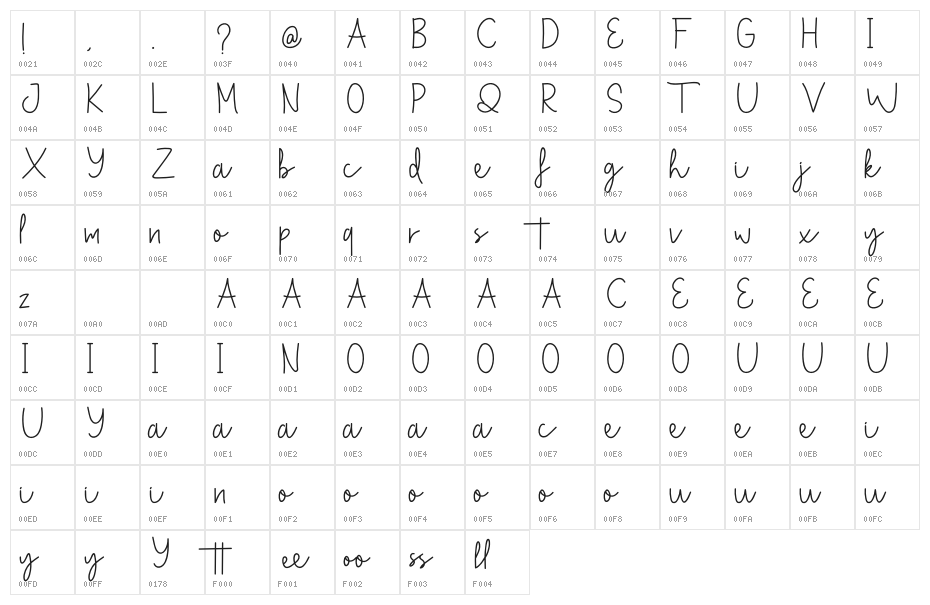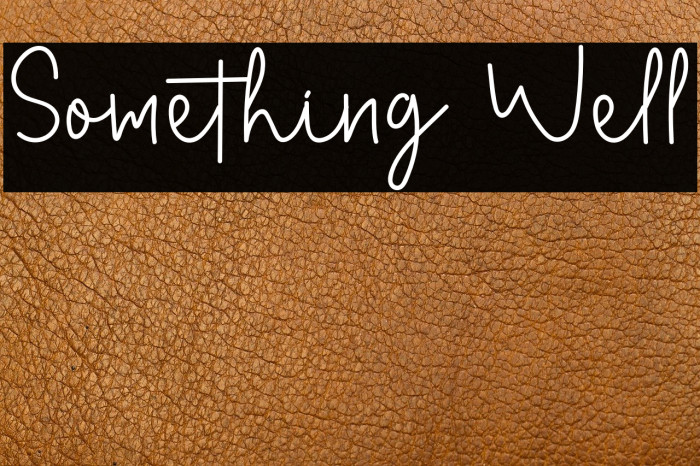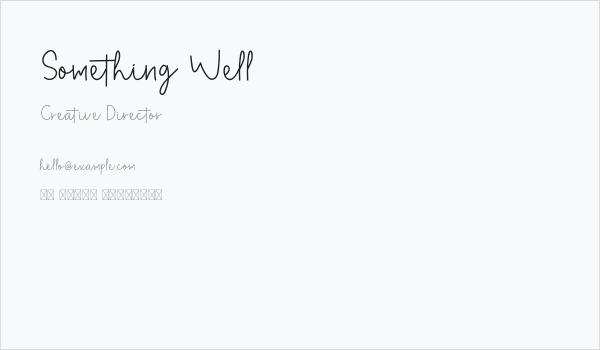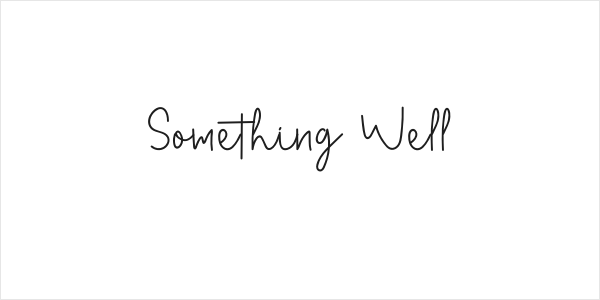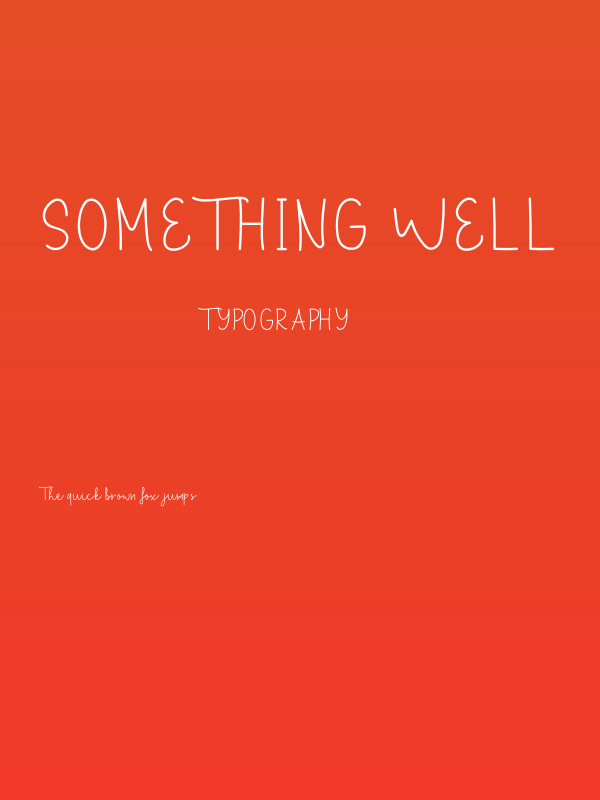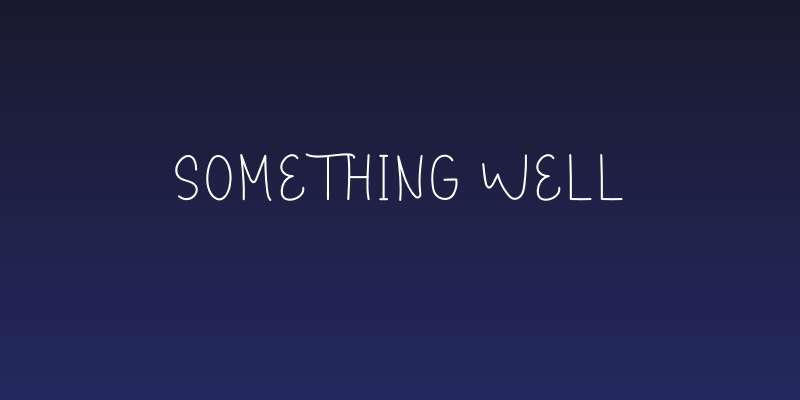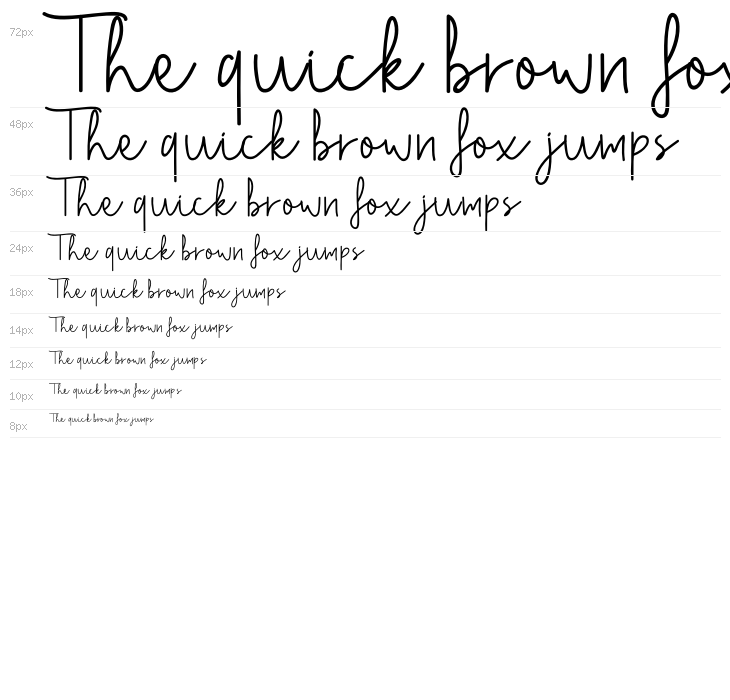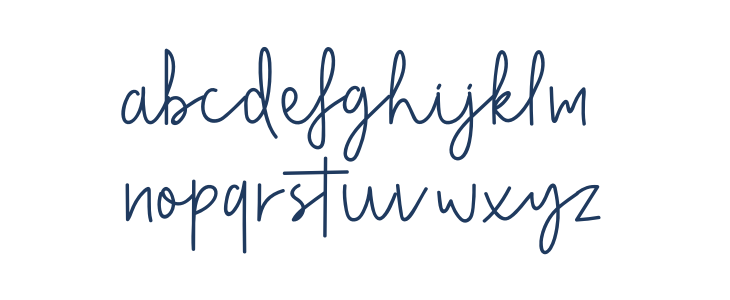
Something Well Font
Something Well Description
This font features a playful and casual handwritten style, characterized by its smooth, flowing lines and slightly irregular shapes. The uppercase letters maintain a consistent height with a slight slant, giving them a dynamic appearance. The lowercase letters are more fluid, with some characters extending below the baseline, adding to the font's informal charm. The overall design is clean and legible, making it suitable for a variety of creative projects. The font includes basic punctuation and special characters, enhancing its versatility.
| Use Case | Logos, Headlines, Informal text |
| Proposed Projects | Ideal for greeting cards, invitations, personal branding, and social media graphics. |